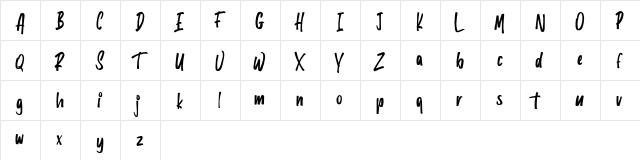
Wonderful Jungle FREE Regular
Wonderful Jungle FREE is a composed and adaptable typeface that performs quietly and consistently across a wide range of design contexts.
Pro Tip: Pair Wonderful Jungle FREE with a font of contrasting weight or personality to build a more expressive typographic hierarchy.